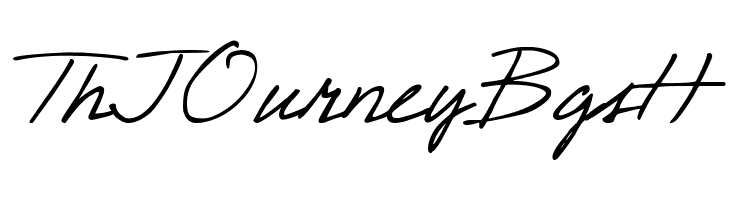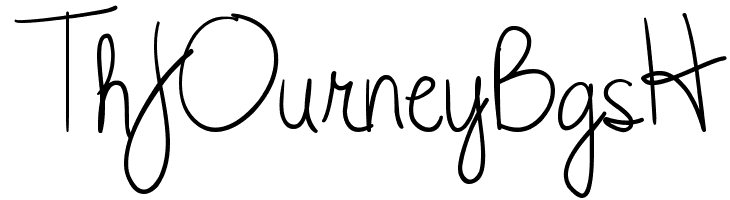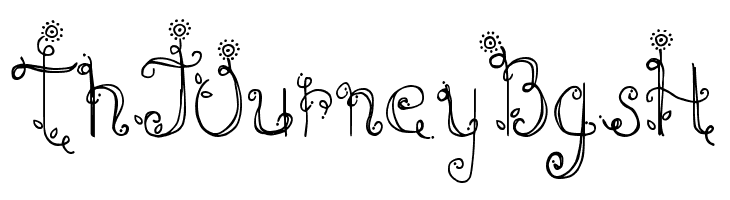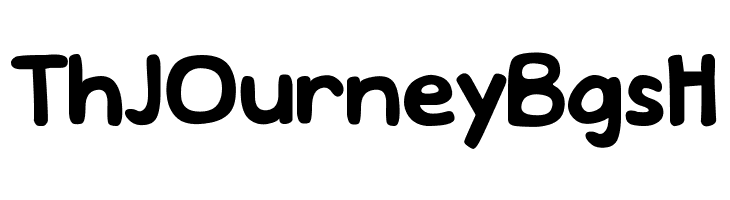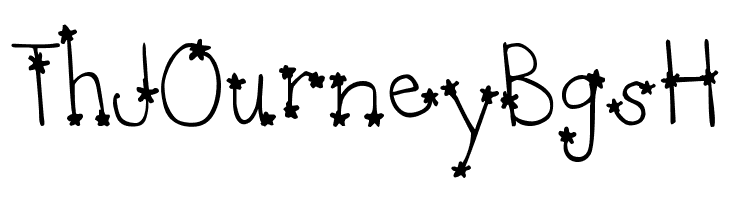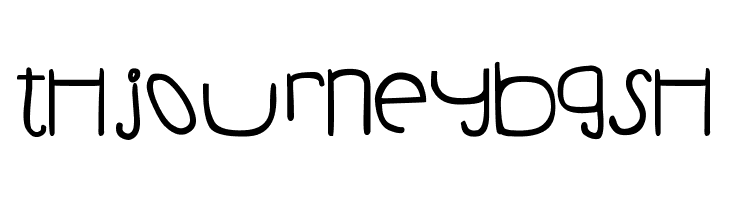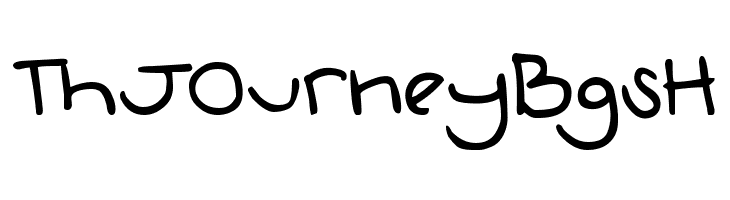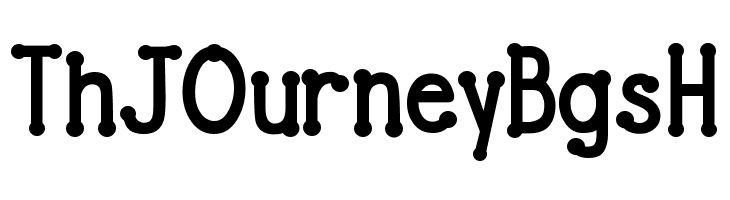
A playful, star-embellished font with a hand-drawn feel.
A playful, handwritten font with rounded edges and a casual feel.
A playful, casual handwritten font with tall, narrow letters and whimsical strokes.
A playful, handwritten font with a quirky and friendly style.
A casual script font with fluid, handwritten strokes and a natural, elegant style.
A playful, bubbly font with rounded characters and consistent thickness.
A whimsical, floral-themed decorative font with playful, curly lines.
A playful, bold font with rounded strokes and a friendly appearance.